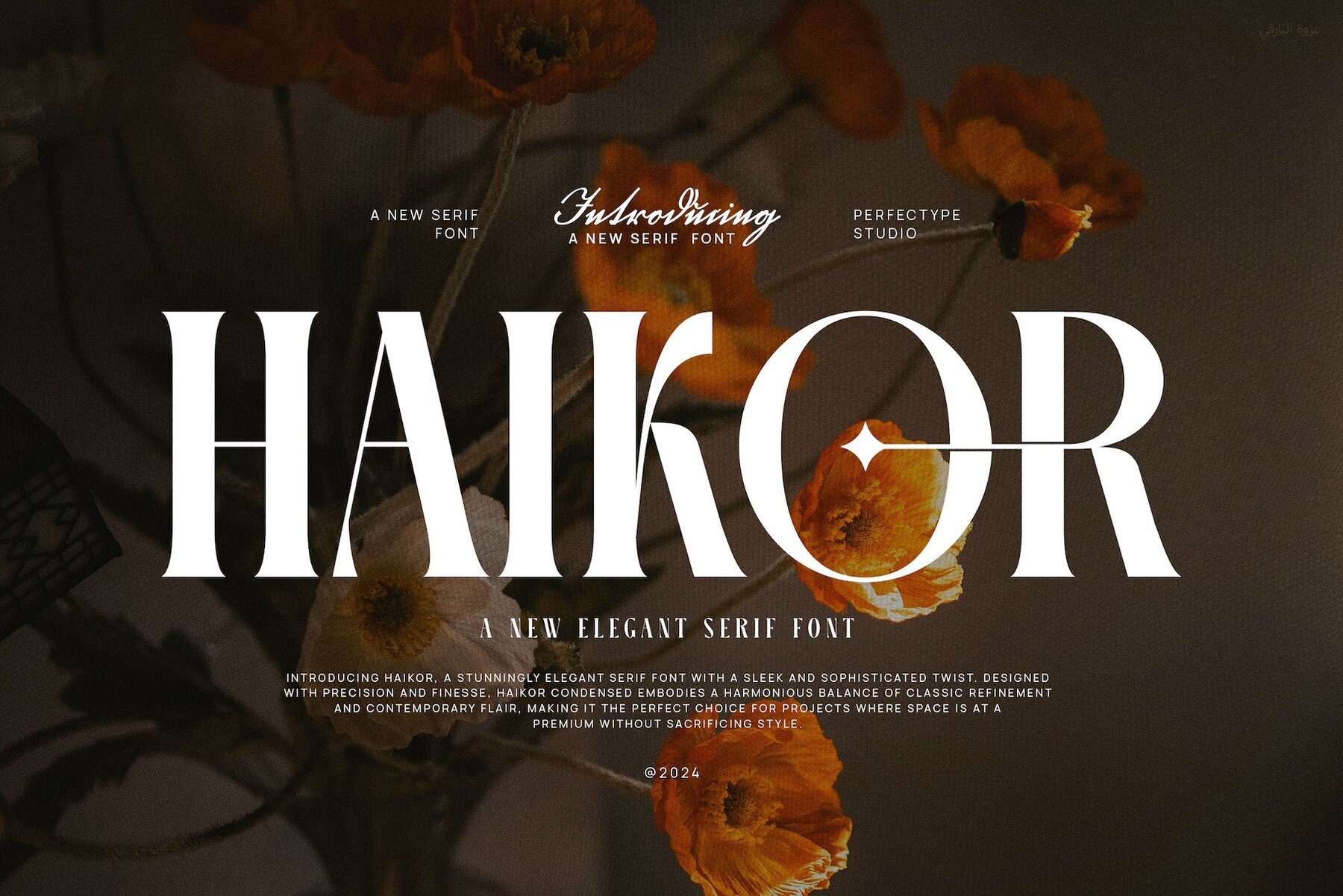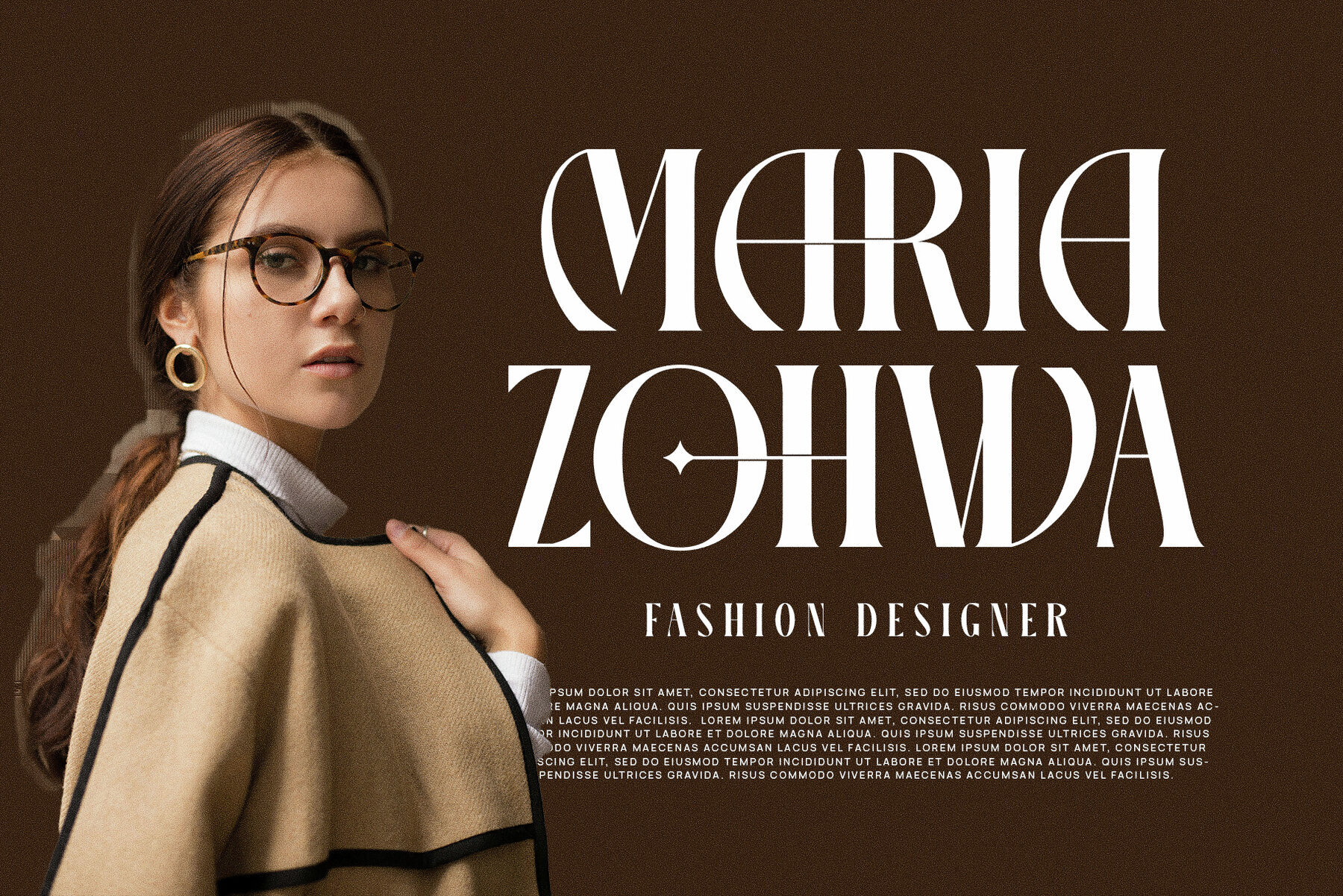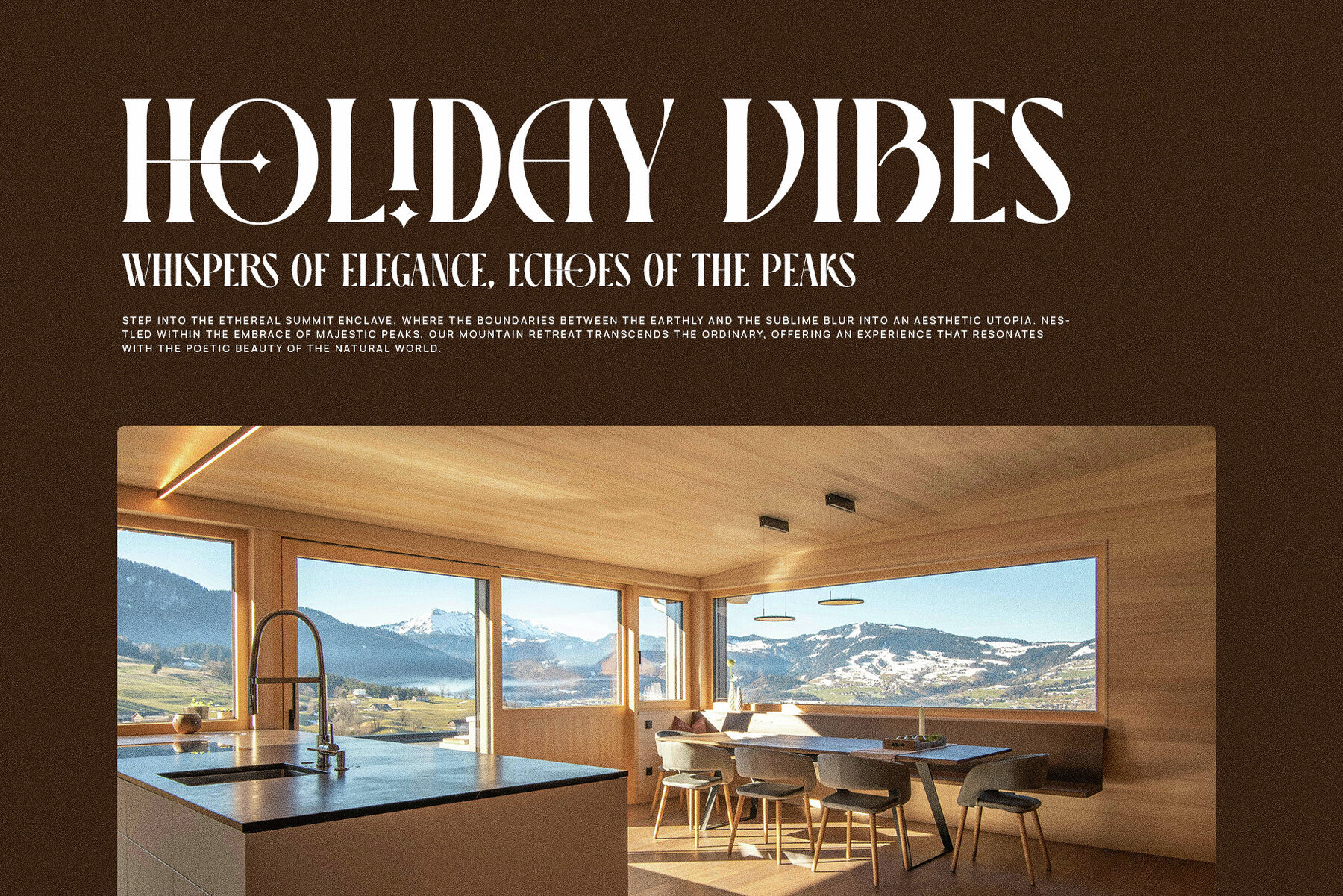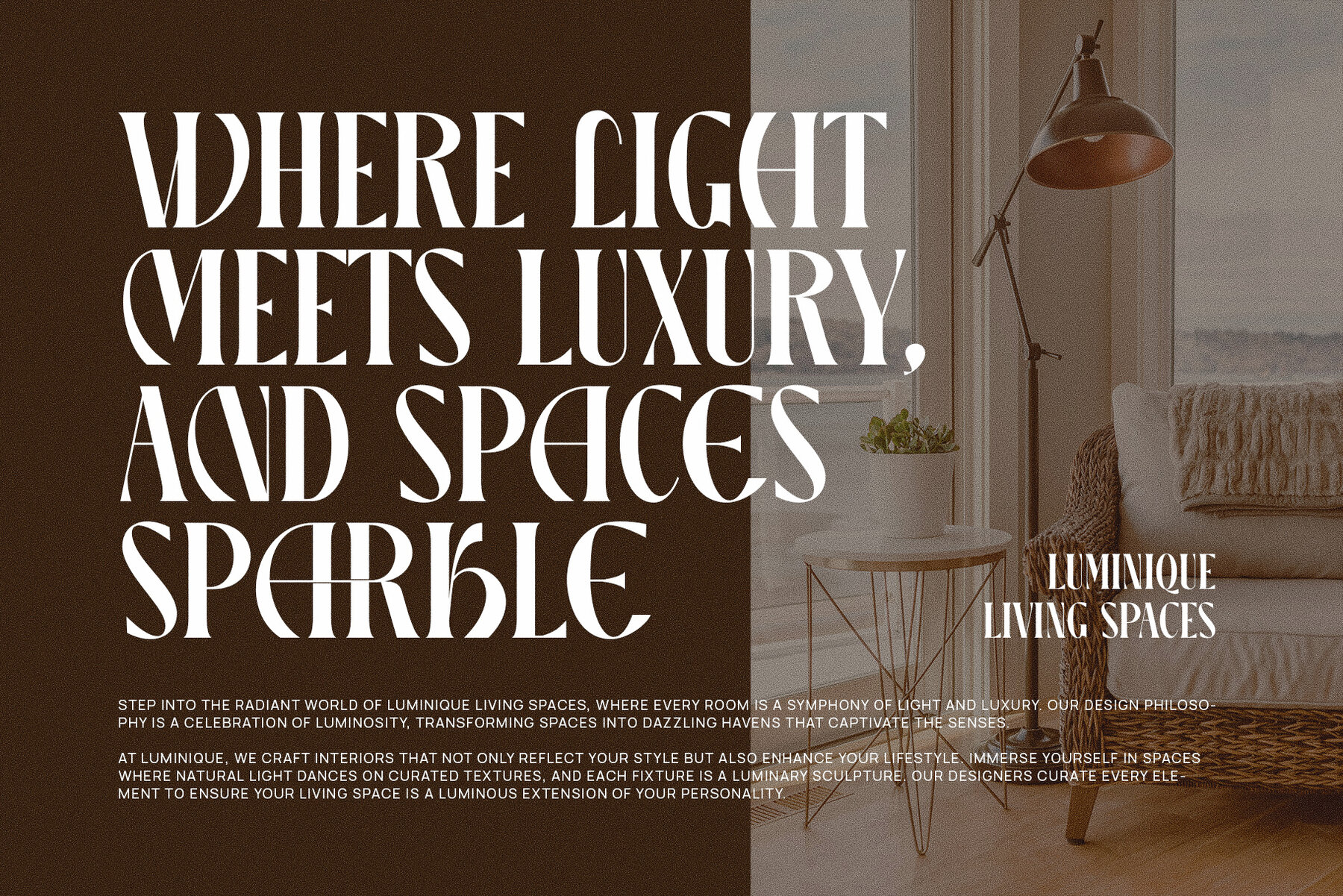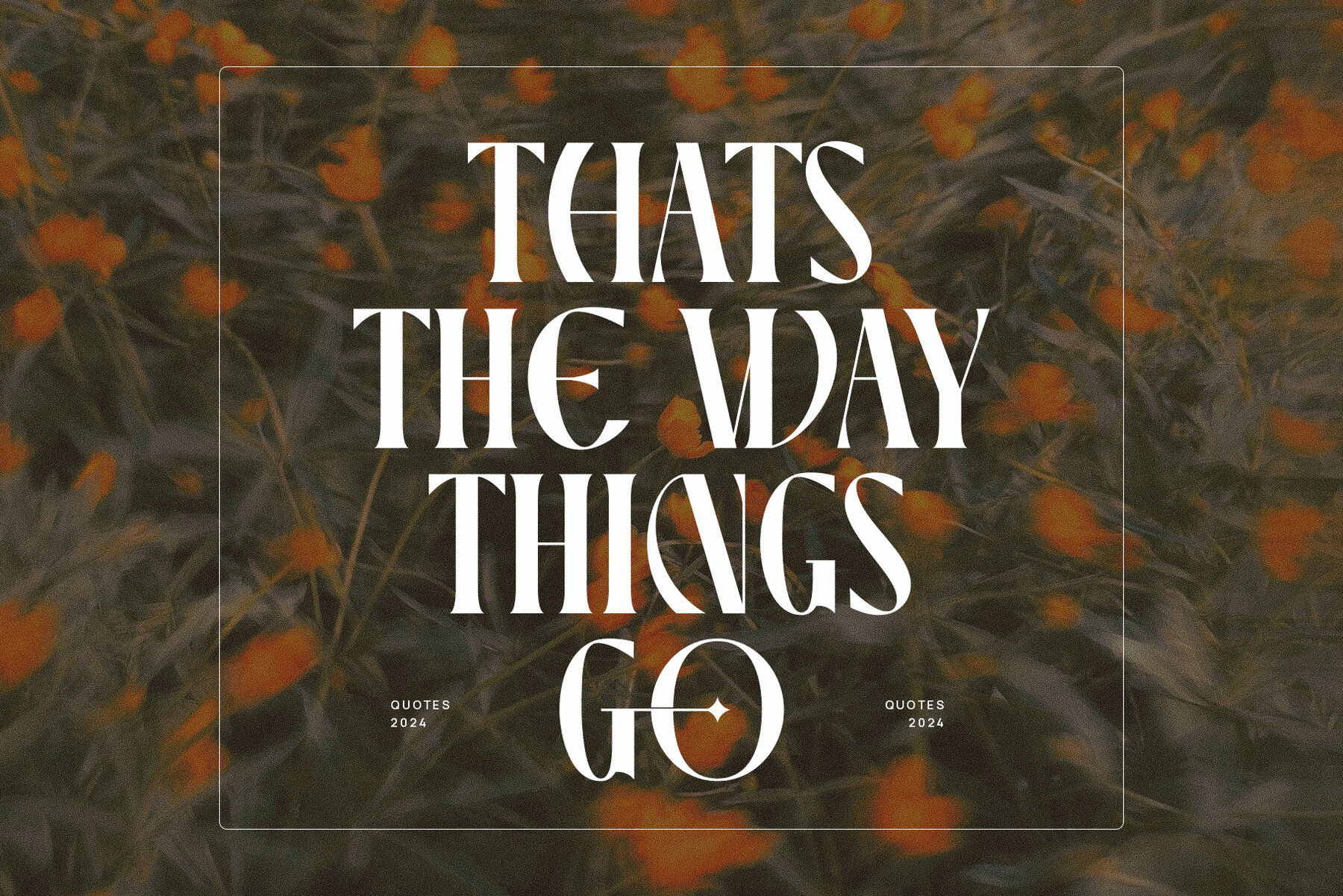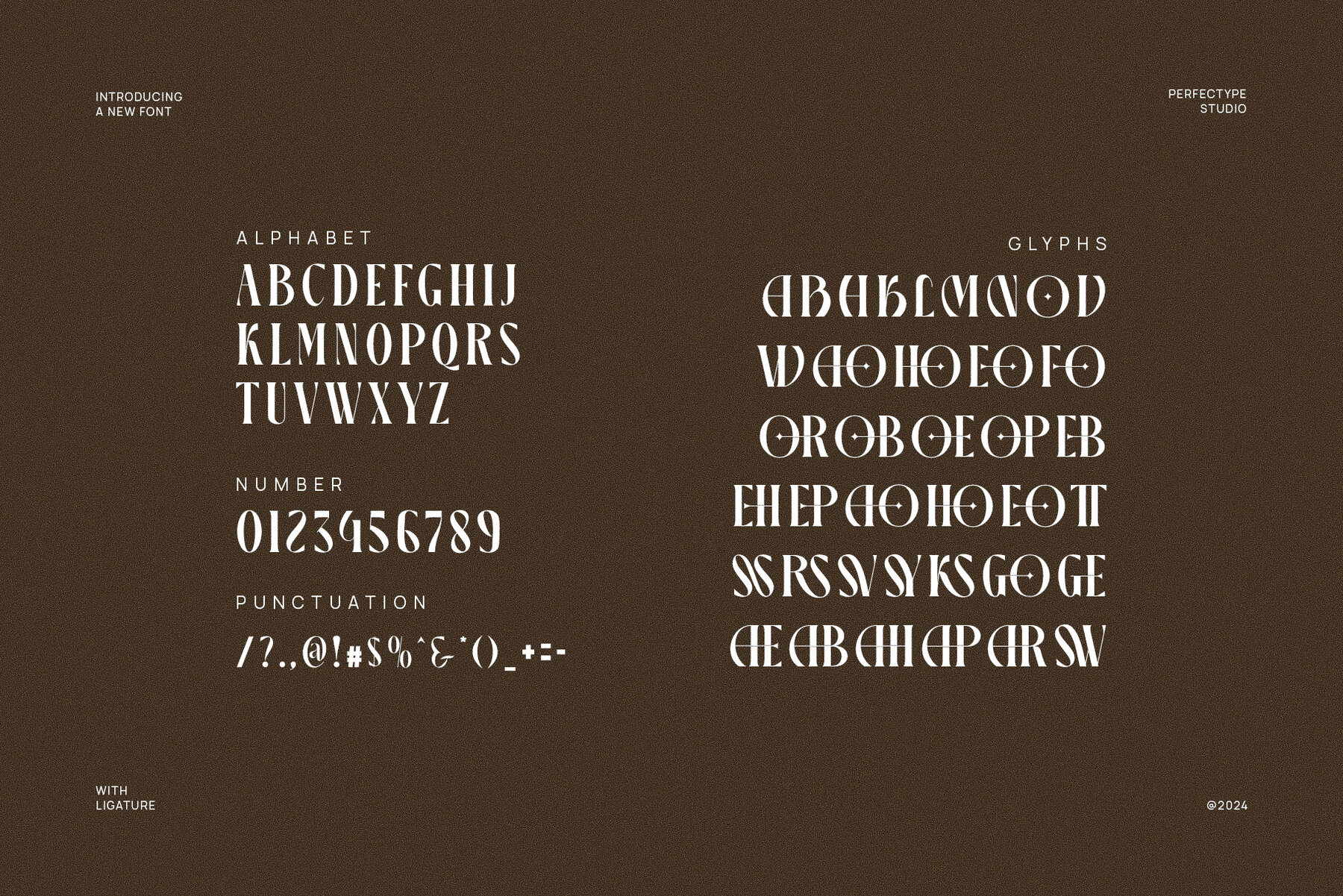
Haikor Font
Haikor
Haikor Elegant Serif Font combines modern sophistication with classic elegance, offering a refined typeface suited for upscale projects. Its finely crafted serifs and proportioned letterforms create a distinctive aesthetic, ideal for luxury branding. Haikor includes carefully designed ligatures and alternate characters, providing designers the flexibility to craft customized typography while maintaining readability.
Designed with versatility in mind, Haikor is perfect for applications ranging from logos and visual identities to premium packaging. It's equally capable in large-scale headlines and smaller text, making it suitable for use in websites, magazines, and promotional materials. The font's graceful curves and elegant shapes make it an excellent choice for industries such as fashion, lifestyle, food, and boutique brands that seek modern appeal with timeless sophistication.
Haikor excels in both print and digital media, ensuring consistency across platforms. With striking ligatures and unique alternates, this serif font is a superb choice for designers aiming to create luxurious branding. Haikor enhances logos, websites, and advertisements, enabling your brand to leave a lasting impression with its touch of refinement and class.